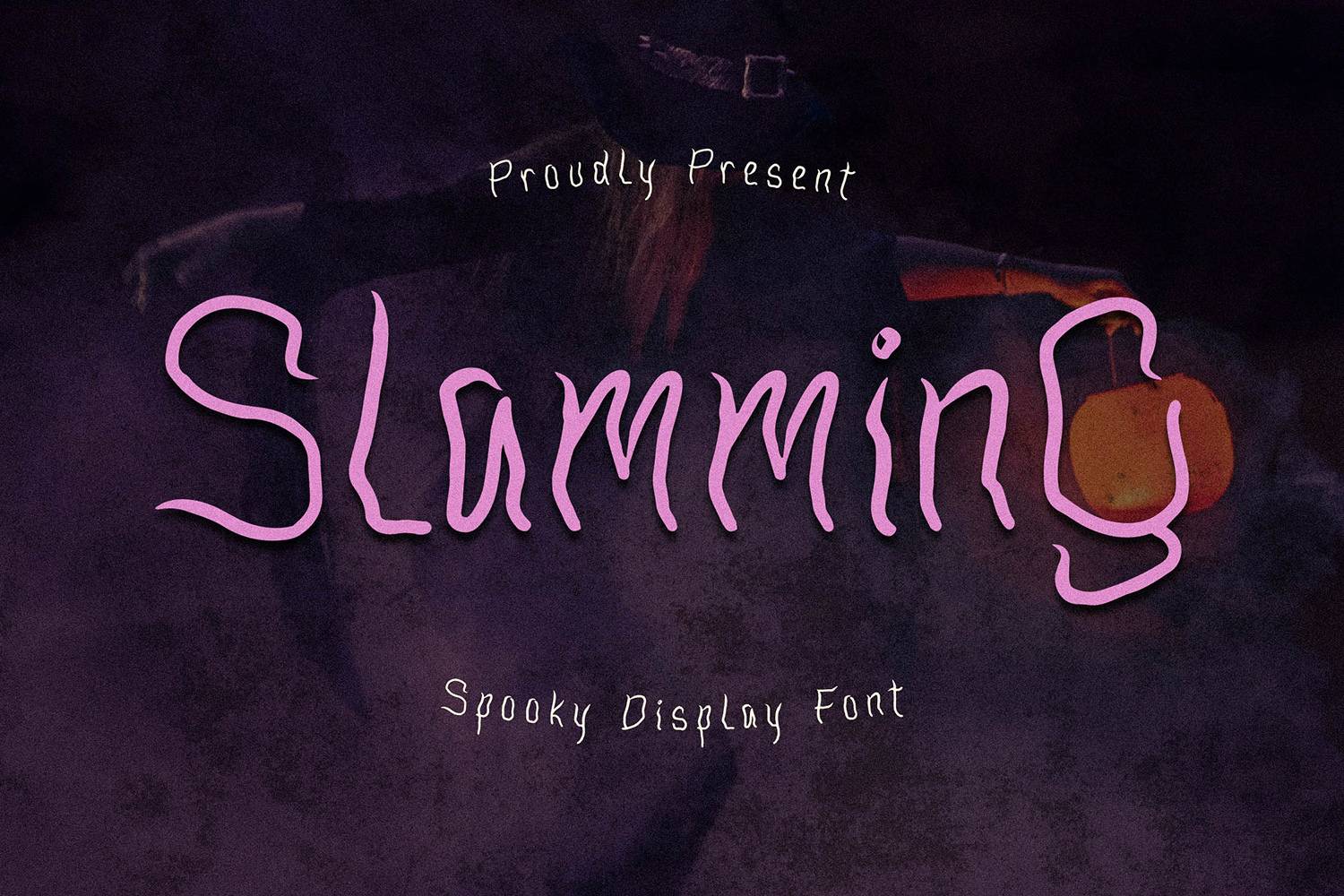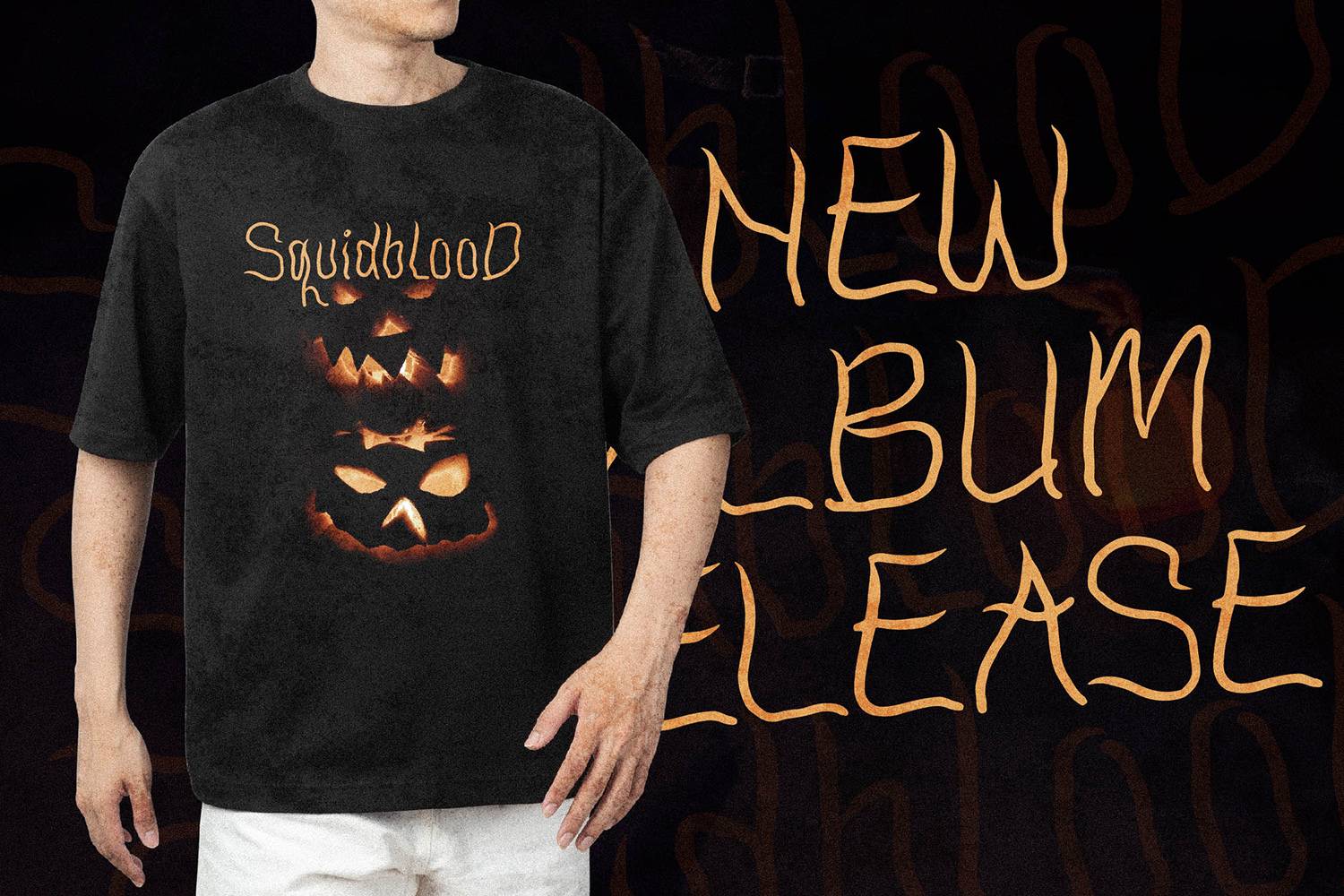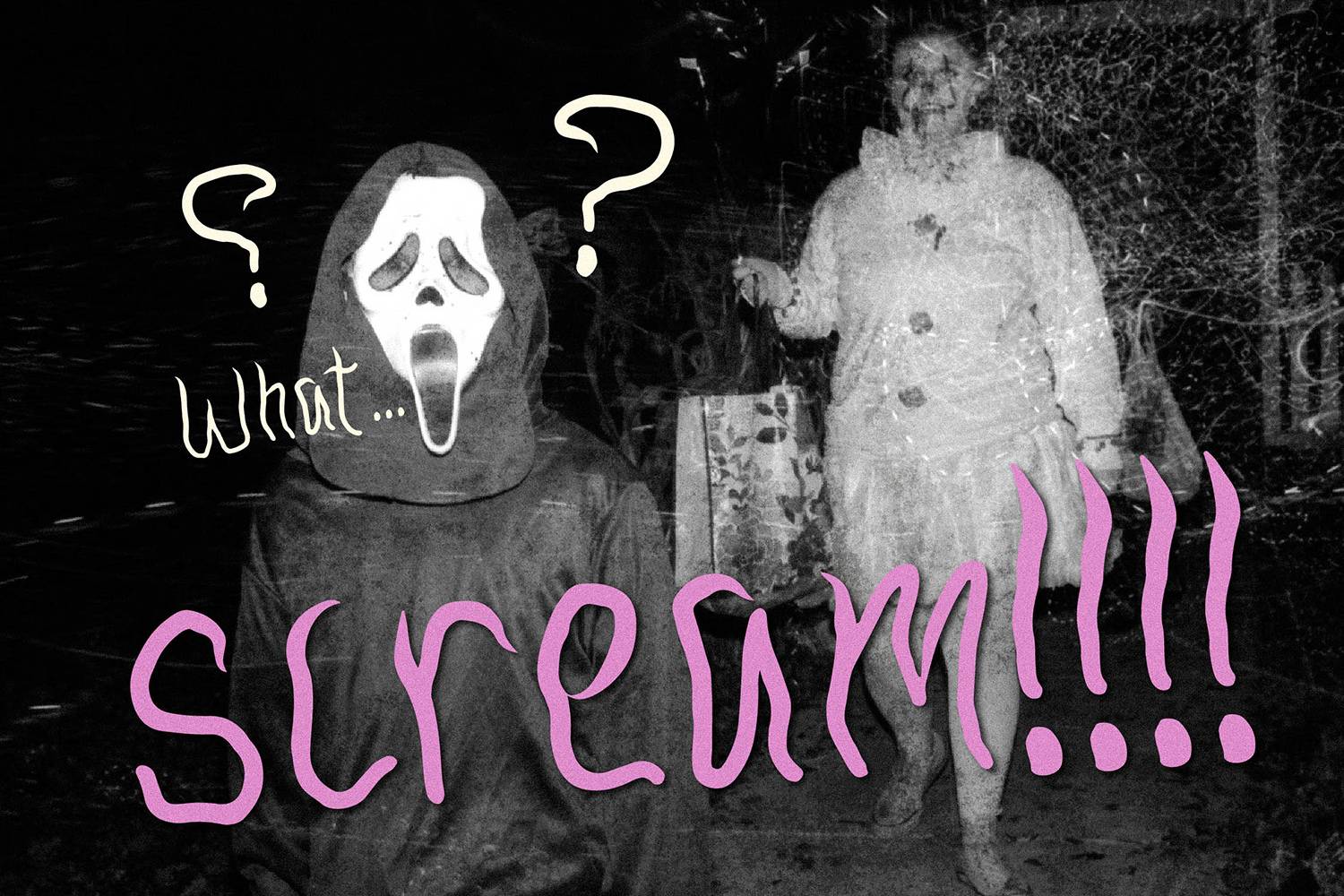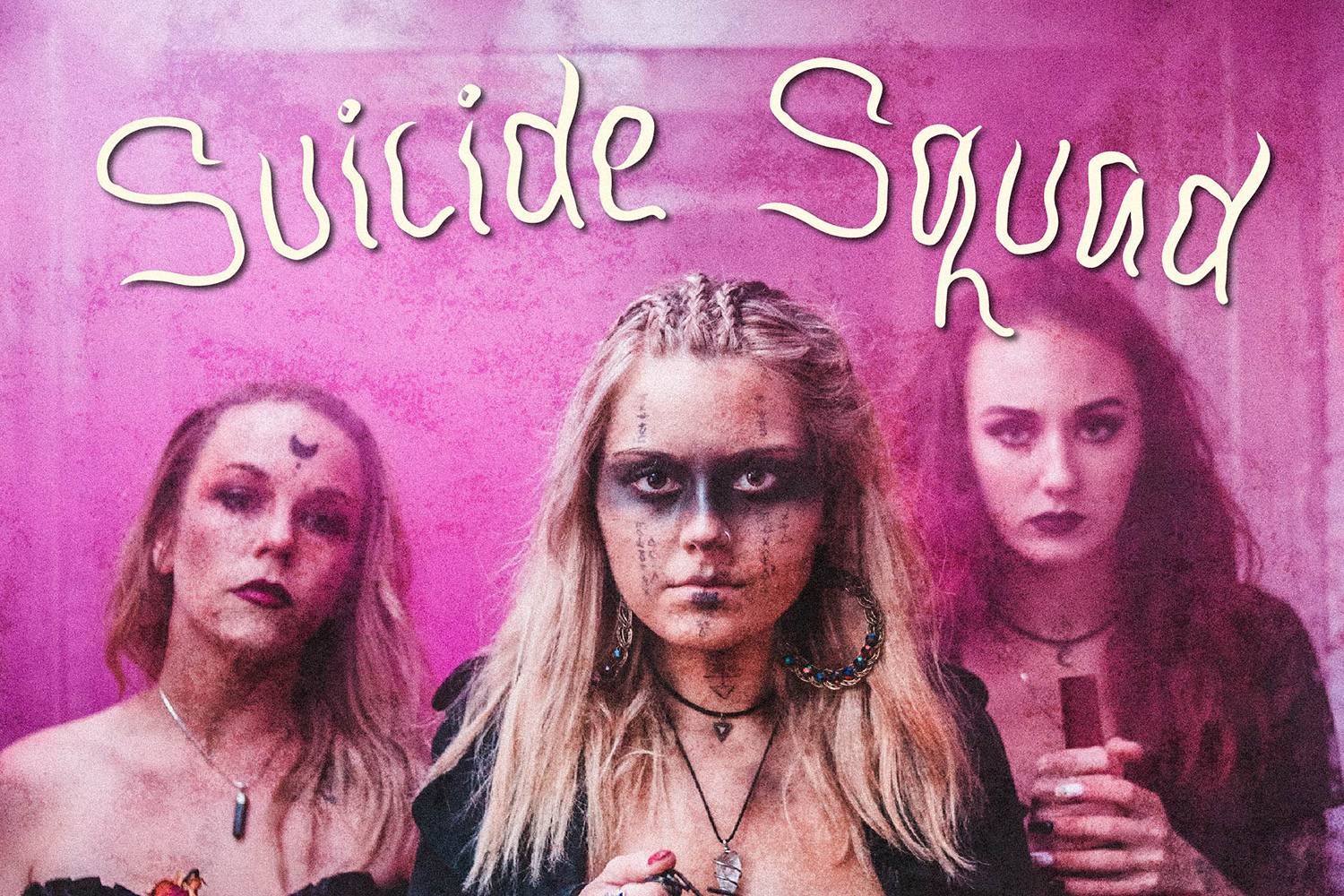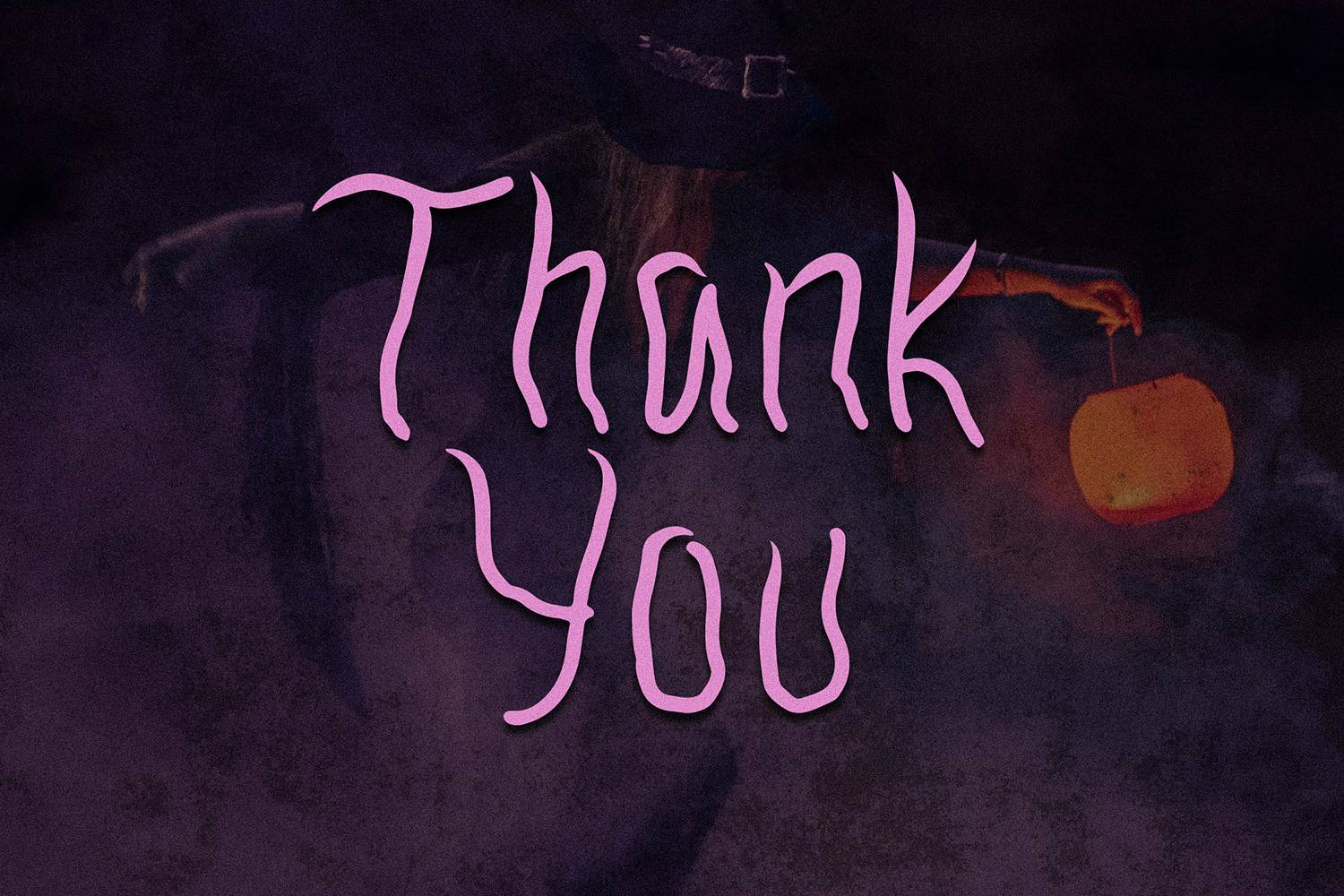
Slamming is a quirky, hand-drawn serif font with a whimsical, slightly irregular style that gives it a playful and informal character. Its slender strokes, uneven lines, and unique letter shapes make it ideal for creative projects, artistic branding, and fun, approachable designs where a casual and distinctive personality is desired.
Slamming Font
About Slamming Font